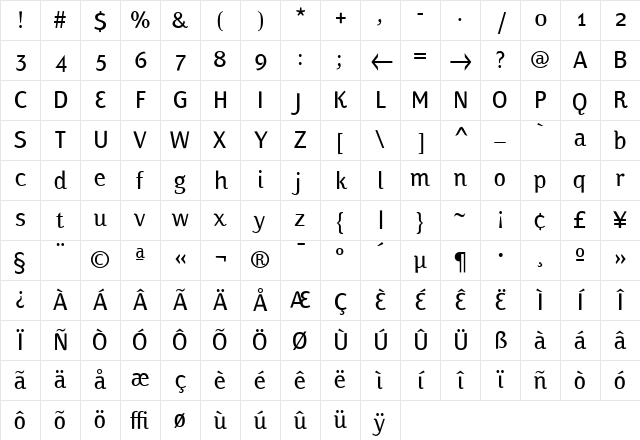
PapasNormal Regular
Foundry: Gert Wiescher, Wiescher-Design, Munich, Germany, www.wiescher-design.de
Complete PapasNormal Regular glyph index. Displaying only characters natively supported by PapasNormal Regular font.
Design Context for PapasNormal
PapasNormal is a composed and adaptable typeface that performs quietly and consistently across a wide range of design contexts.
Who designed the PapasNormal Regular font?